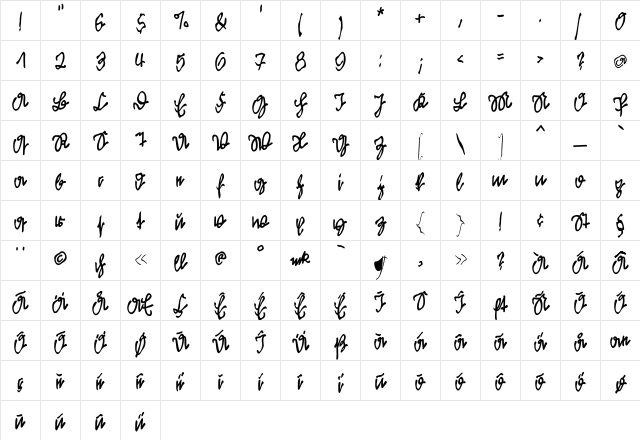
KleinsFirstScriptPark Regular Font Preview
KleinsFirstScriptPark Regular
KleinsFirstScriptPark Regular Font Details
Design Context for KleinsFirstScriptPark Typeface
KleinsFirstScriptPark brings a calligraphic fluidity to the page — its connecting strokes and expressive curves give it an unmistakably human quality.
Font Pairing: Combine KleinsFirstScriptPark with a simple geometric sans for maximum contrast — the tension between flowing curves and clean structure is a classic typographic pairing.
Pro Tip: Use KleinsFirstScriptPark for short runs of text — names, titles, or taglines. Extended body copy in script faces tires the eye quickly.